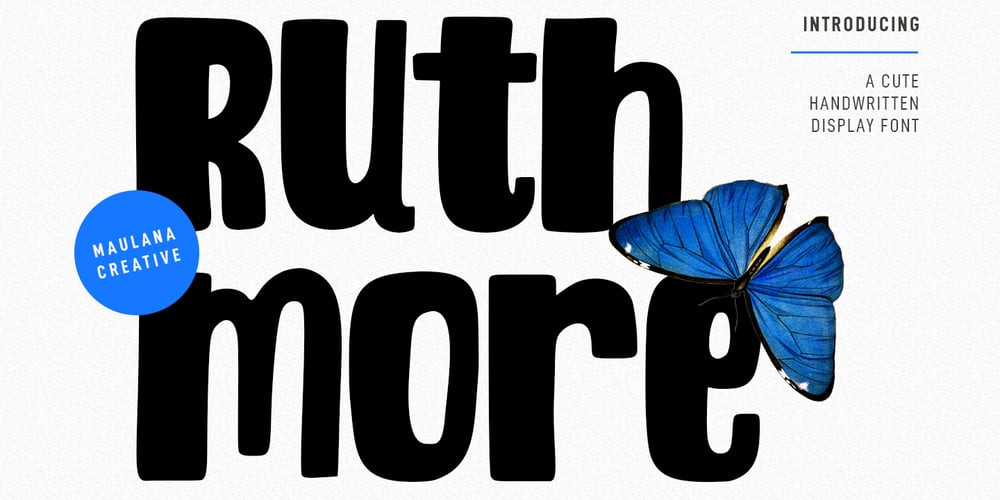
Ruthmore
Ruthmore font
Ruthmore Font Family was designed by Gilang Maulana and published by Maulana Creative. Ruthmore contains 1 styles and family package options. Ruthmore is a fancy handwritten script font. With medium contrast stroke, fun character with a bit of ligatures and alternates. To give you an extra creative work. Ruthmore font support multilingual more than 100+ language. This font is good for logo design, Social media, Movie Titles, Books Titles, a short text even a long text letter and good for your secondary text font with sans or serif. Make a stunning work with Ruthmore font. Cheers, Maulana Creative